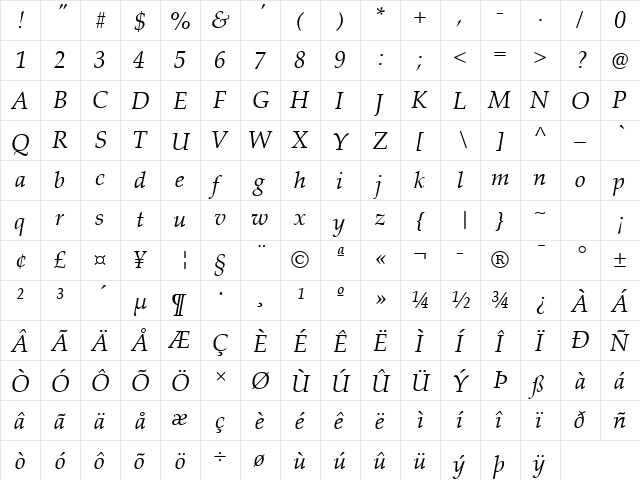
Palatino Linotype Italic
| Foundry | LINOTYPE-HELL AG |
| Designer | Hermann Zapf |
Design Context for Palatino Linotype Typeface
Palatino Linotype is a composed and adaptable typeface that performs quietly and consistently across a wide range of design contexts. Its italic angle brings a sense of urgency and motion to the letterforms.
Pro Tip: Try Palatino Linotype for annotation and caption copy alongside an upright companion — the contrast in angle creates a dynamic but ordered typographic system.